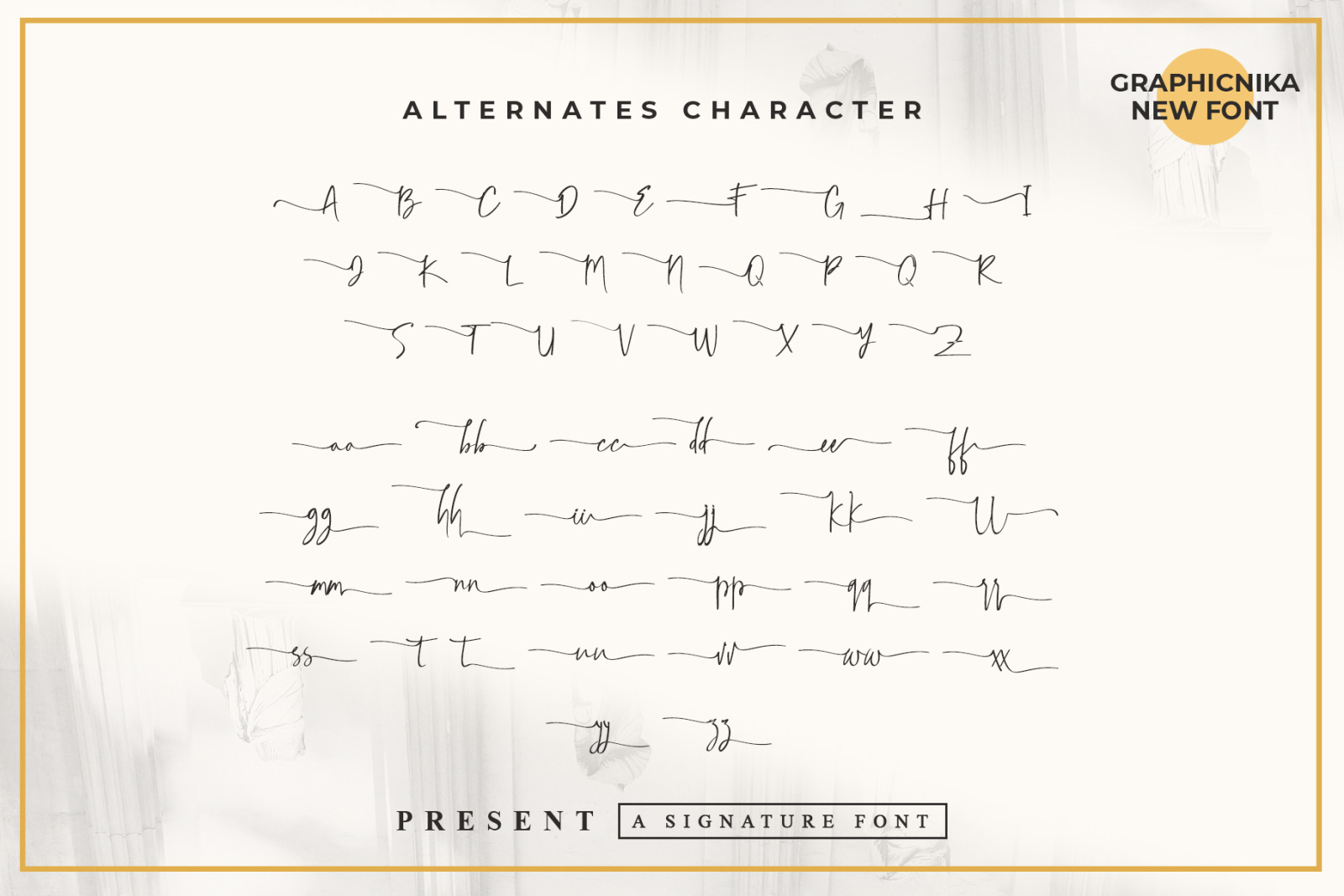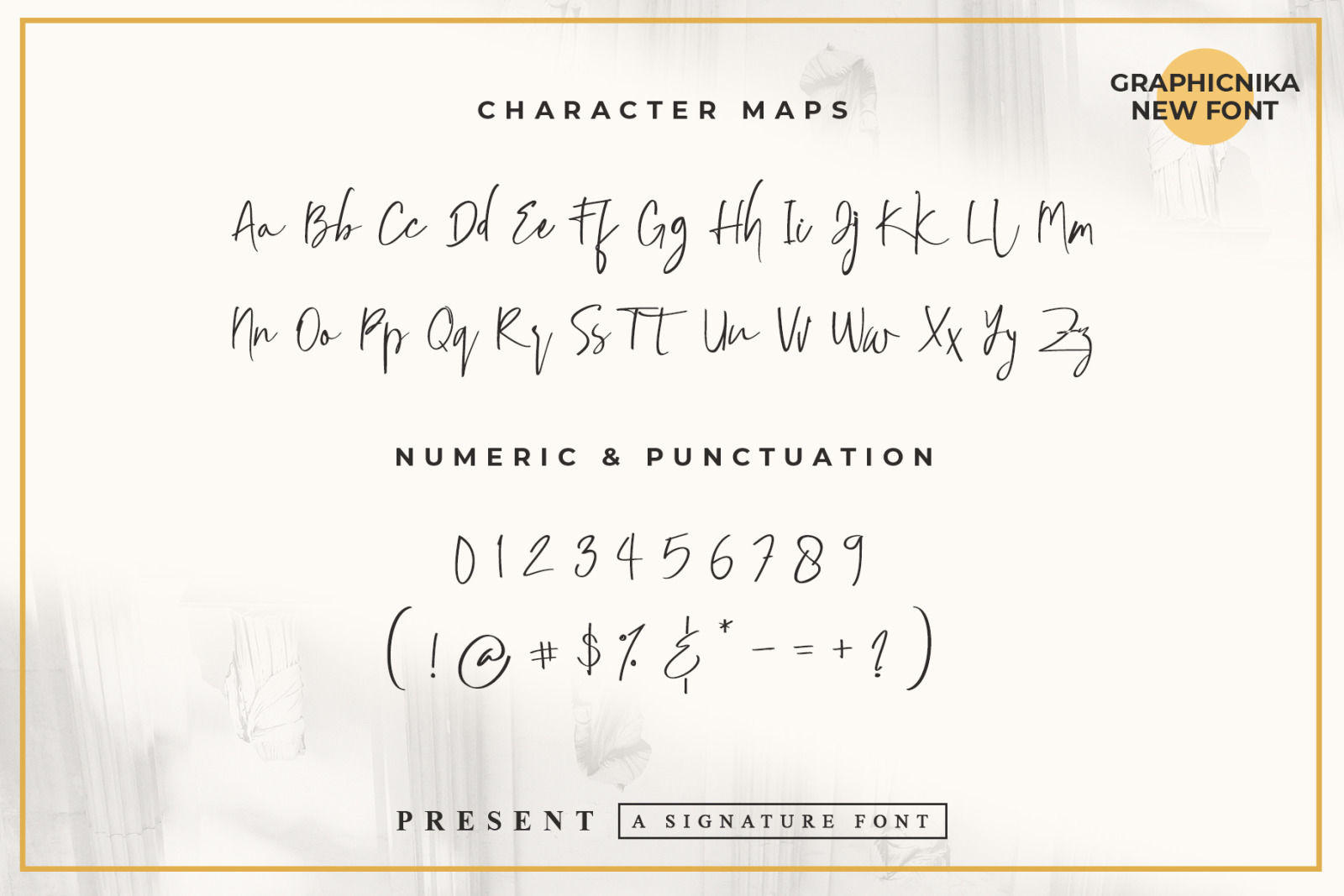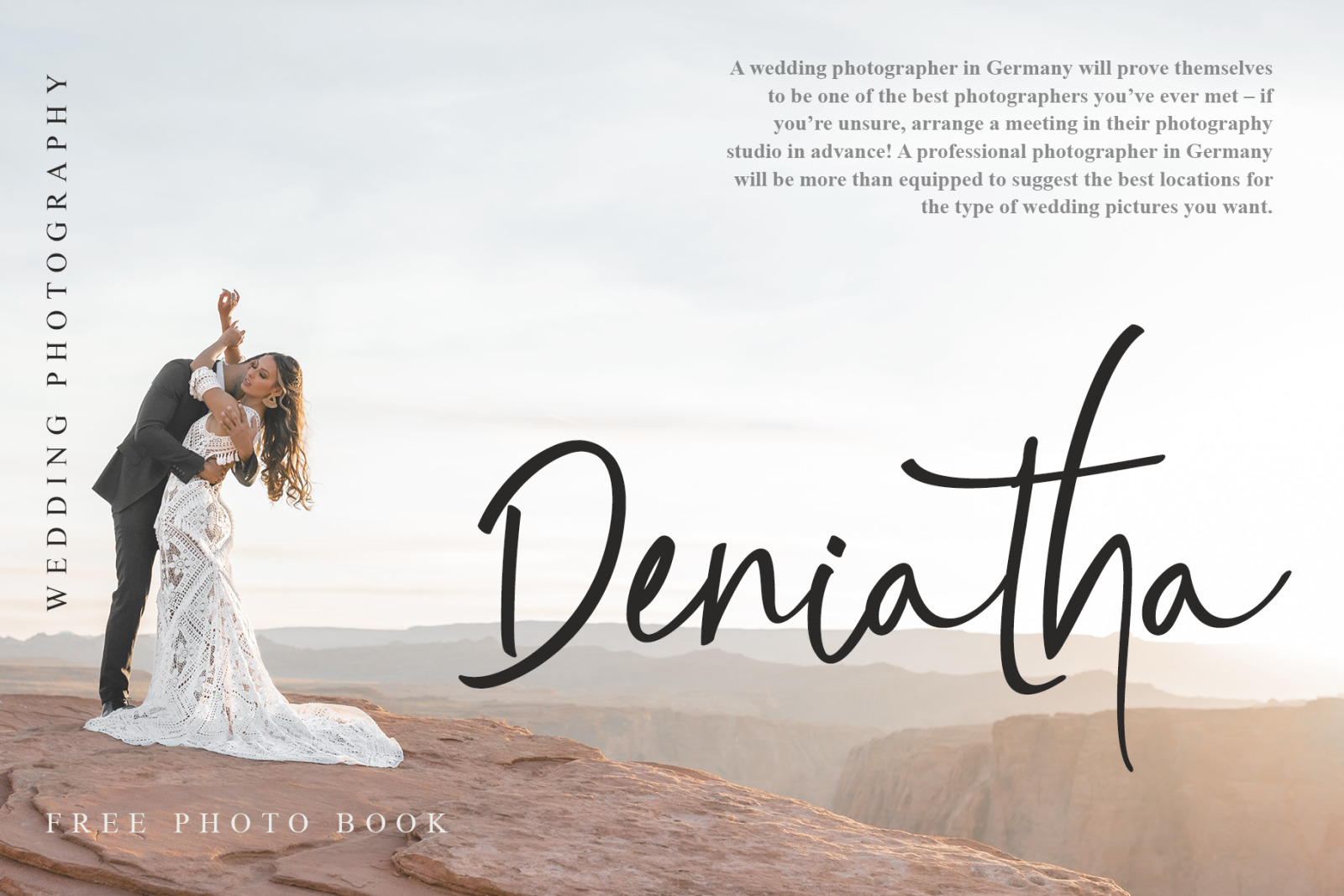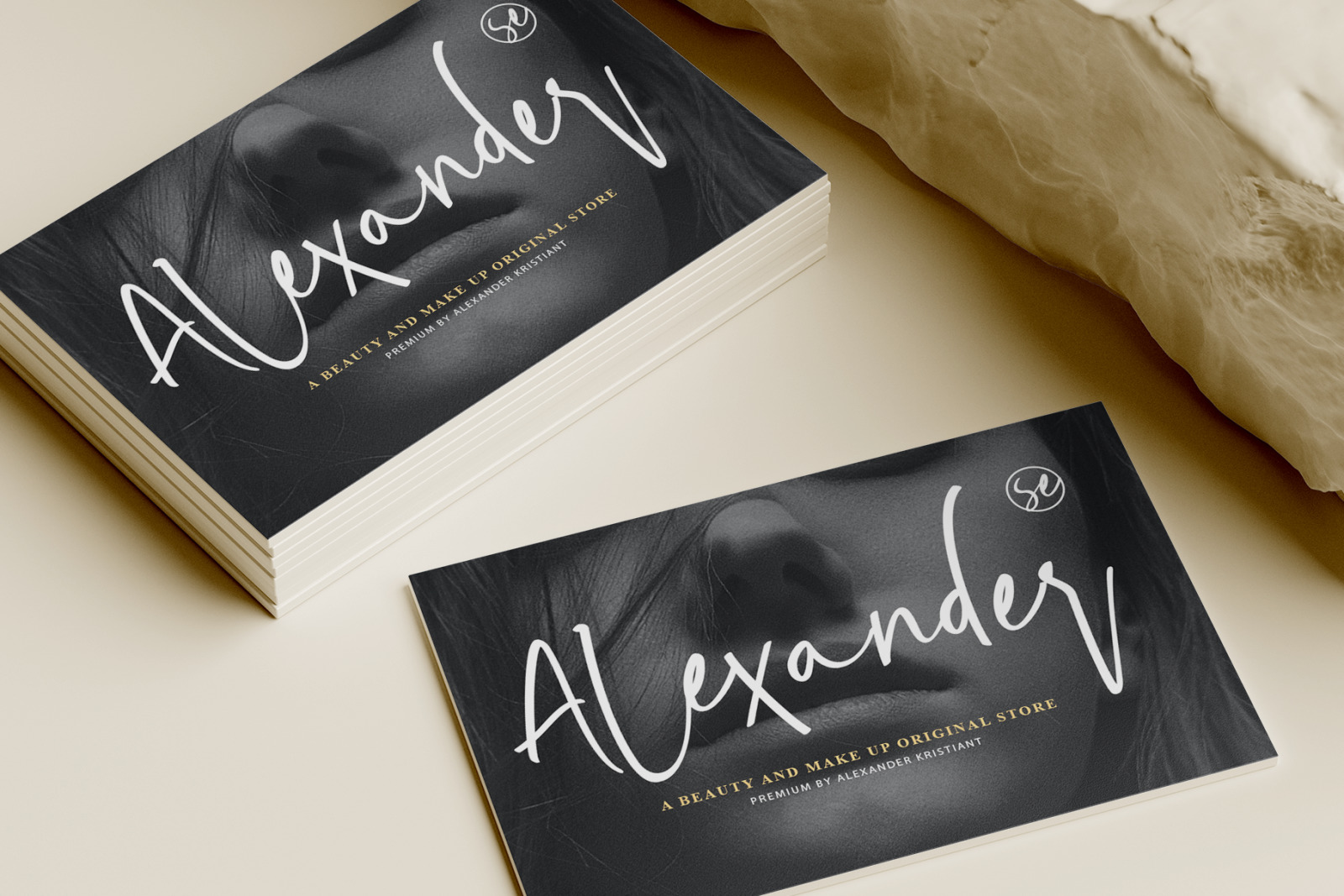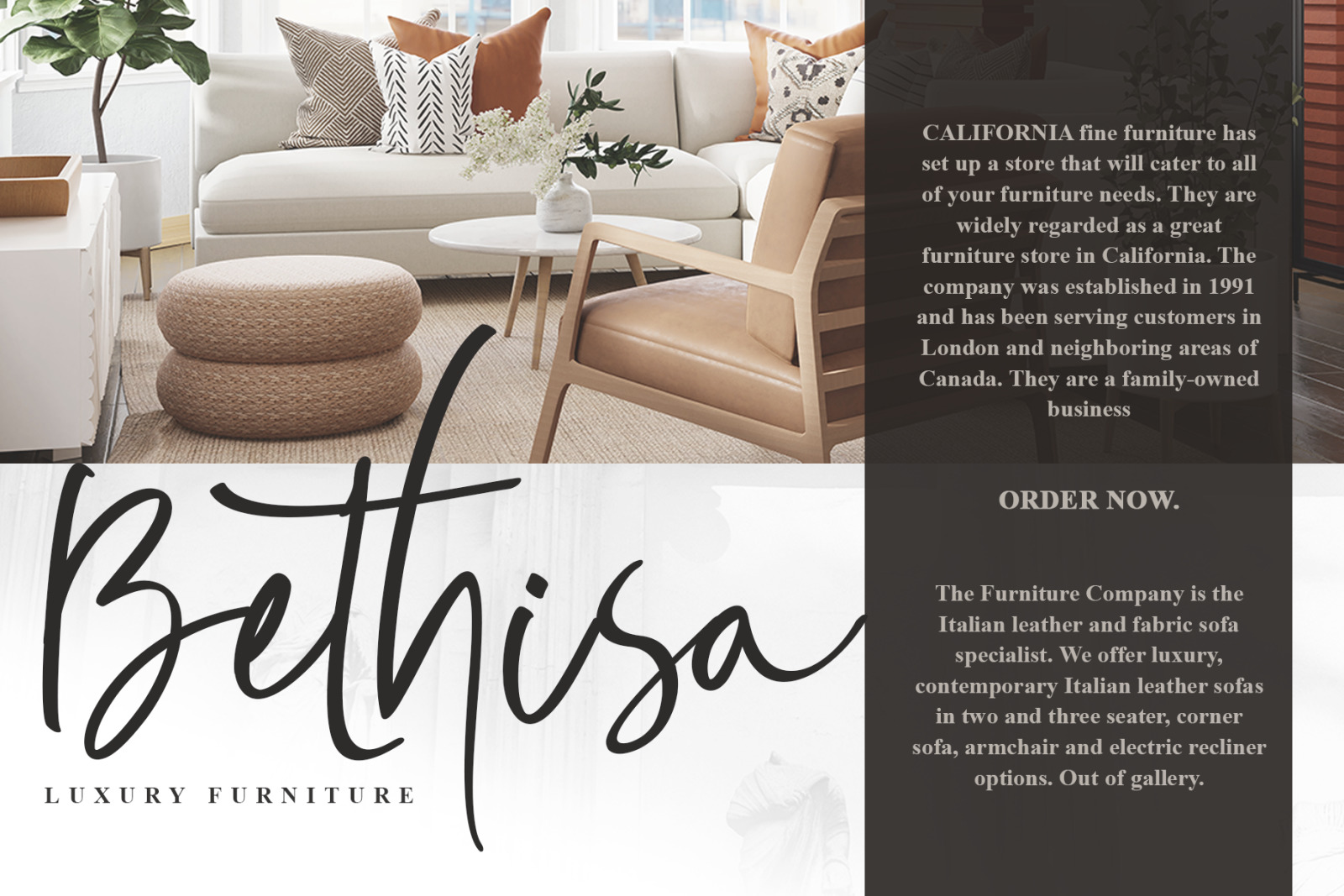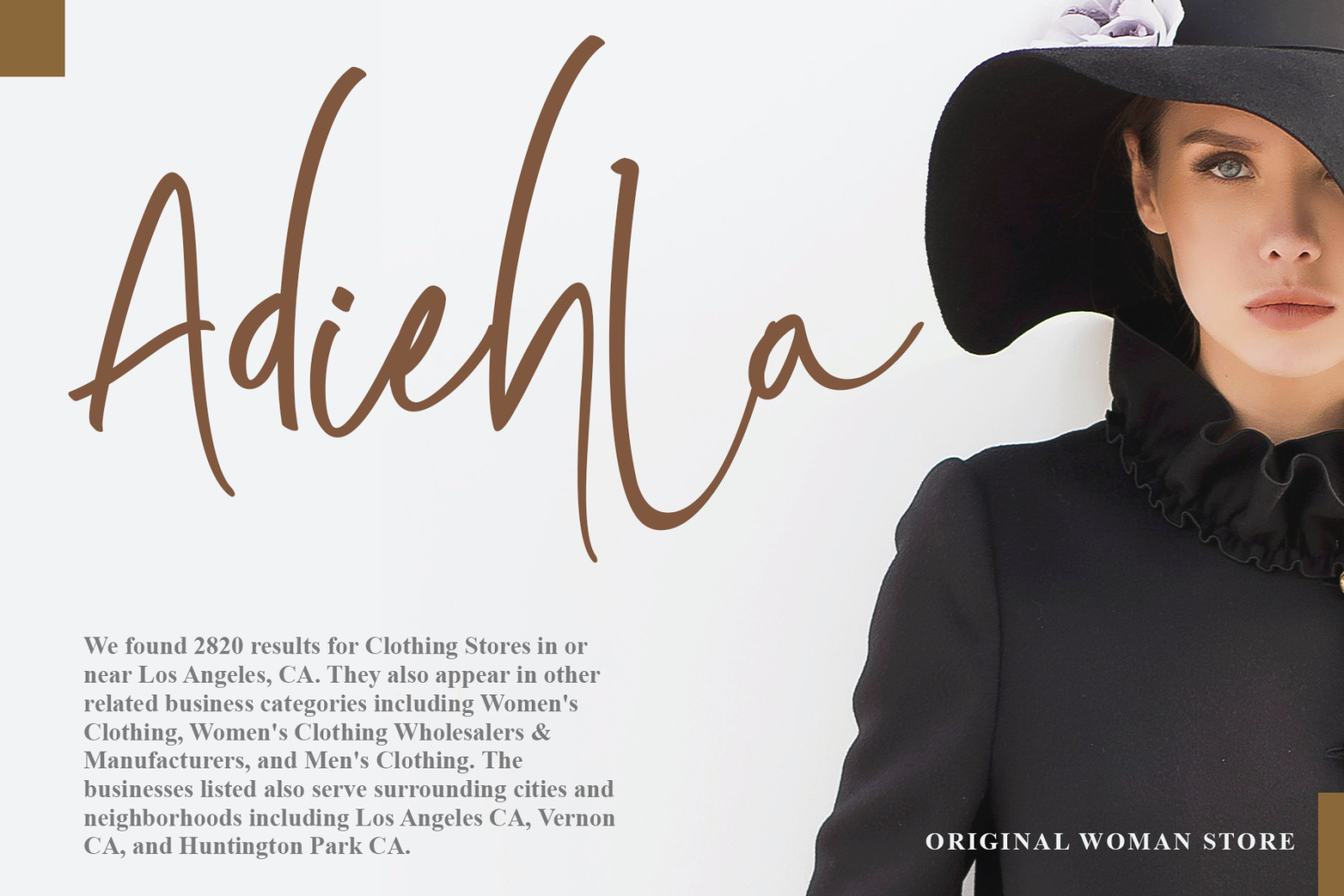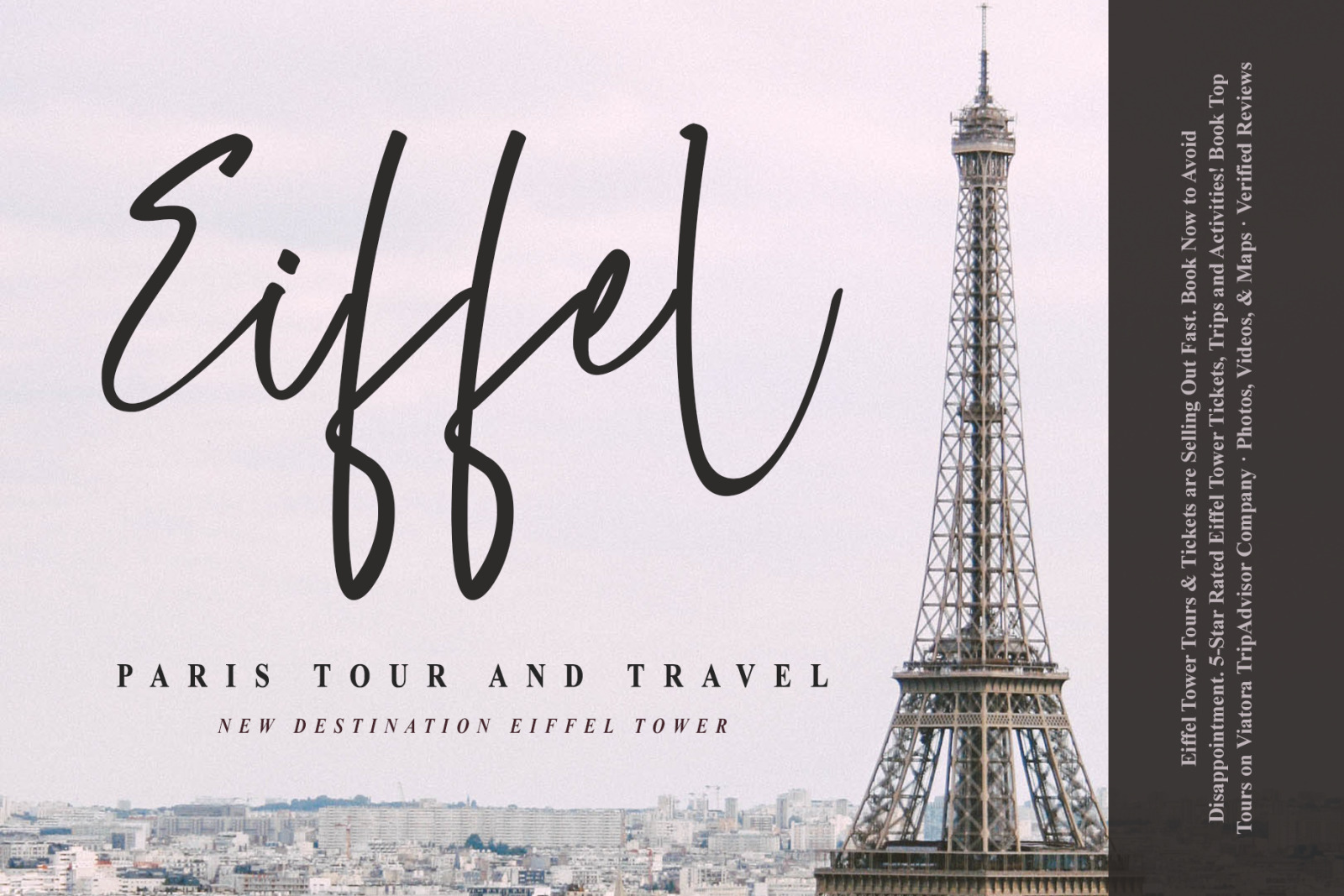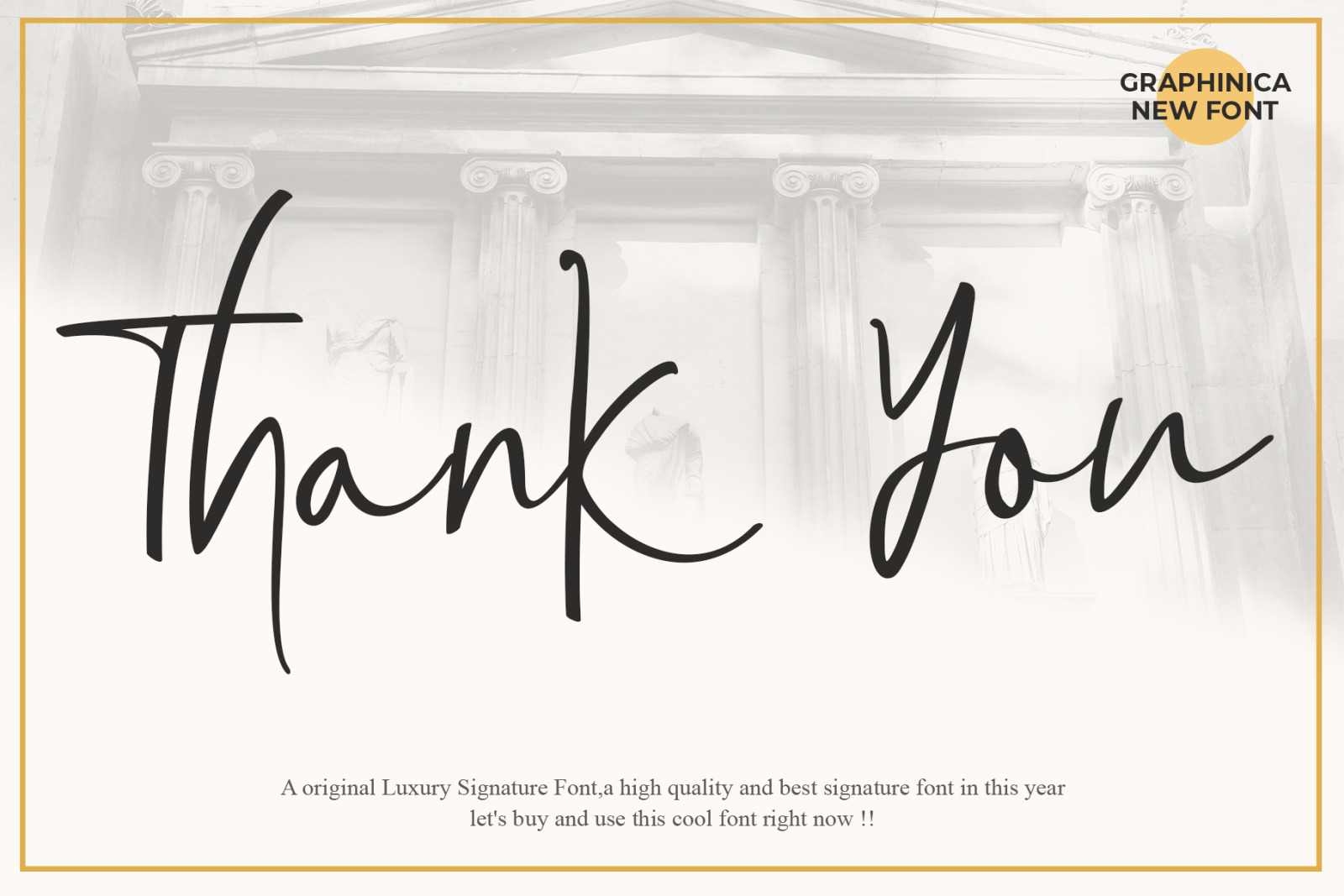
Franklin | Business Signature Font
Franklin font is a handwritten signature script with a natural & stylish flow. Franklin font of scripts is perfect for personal branding. Perfect for branding projects, logo, wedding designs, social media posts, advertisements, product packaging, product designs, label, photography, watermark, invitation, and stationery.